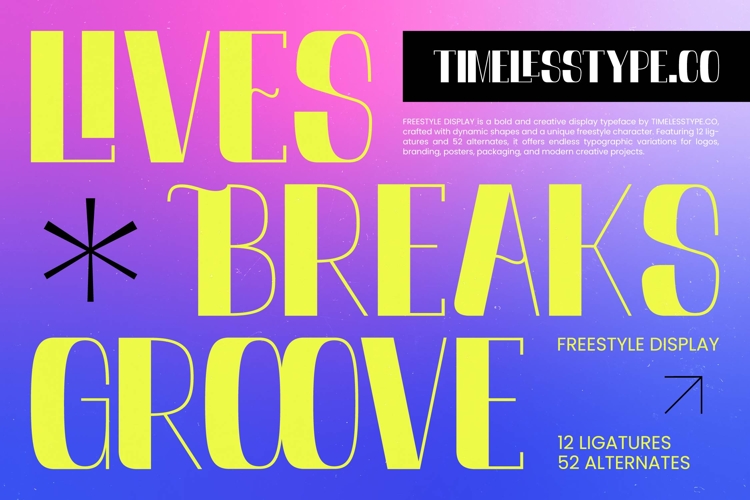
Lives Breaks Groove - Freestyle Display
Command attention with an unmatched visual energy. Lives Breaks Groove - Freestyle Display is a masterclass in high-contrast typography, blending bold, heavy strokes with delicate hairlines. This modern display typeface exudes a dynamic freestyle character that is perfect for designers looking to inject creative flair into their work. With its unique rhythmic flow and progressive aesthetic, it transforms any layout into a compelling visual statement.
Elevate your design portfolio with a versatile powerhouse. This typeface is perfectly suited for high-end luxury branding, editorial design, and premium packaging. Whether you are crafting iconic logos, experimental posters, or impactful headlines, Lives Breaks Groove - Freestyle Display provides the sophisticated edge required for contemporary industries like fashion, music, and street culture. It is the ideal solution for projects that demand a bold personality and artistic distinction.